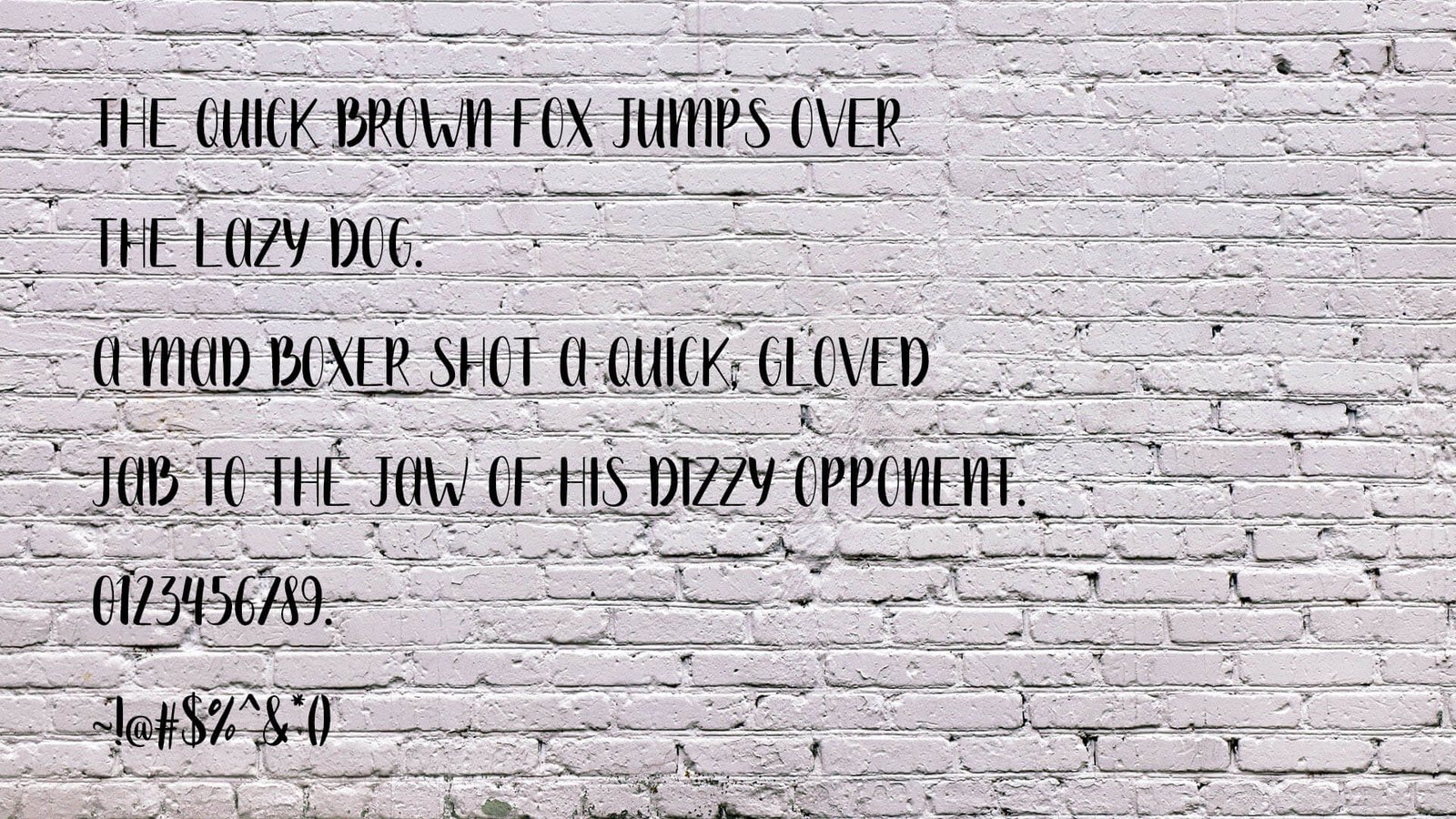
Mona font is from the handwritten typeface family. Its designer is Gatis Vilaks. This font has a text style that consists of contrasting thin and bold lines. This font is very unique in style and shape as compared to other handwritten or script fonts. You can use this font for creative designs and projects for giving them a unique and stylish look.
Its design pattern is very good and well-disciplined due to which this font looks good with the overall designs and supports them.
Mona Font Family
It doesn’t detract from the overall design. This font has characters and glyphs that are unique and stylish. Its characters include mixed-case letters, numbers, symbols, and special characters.